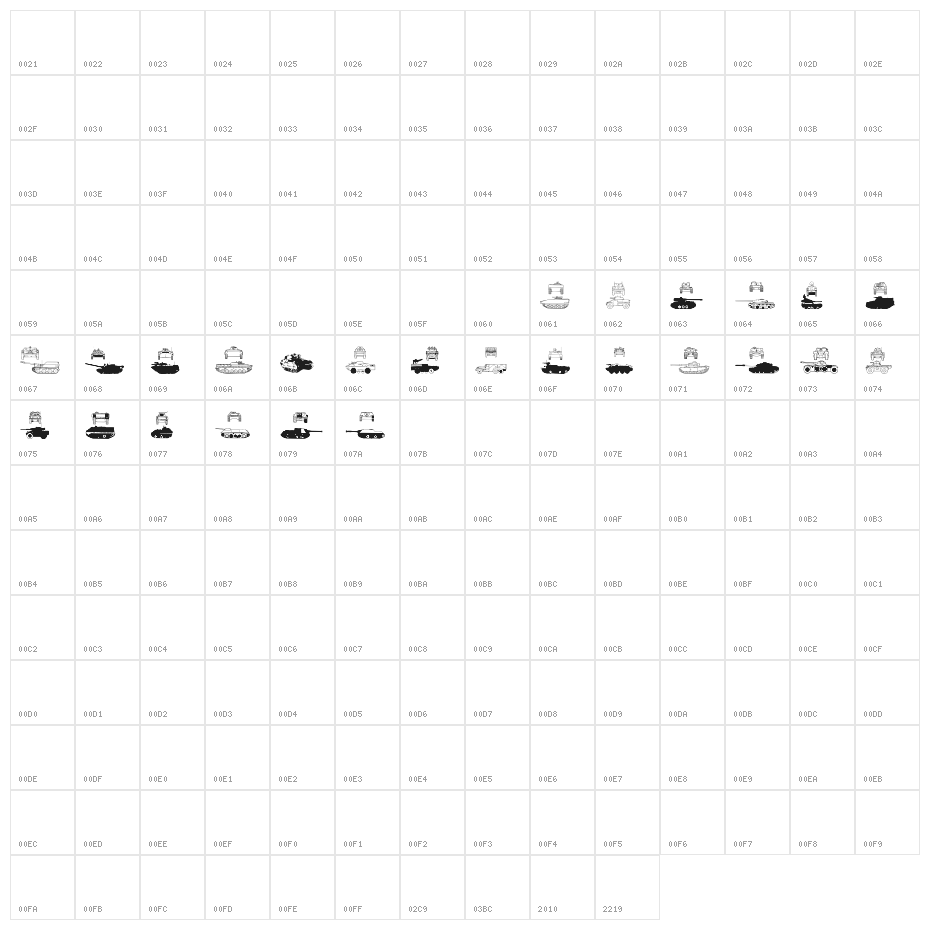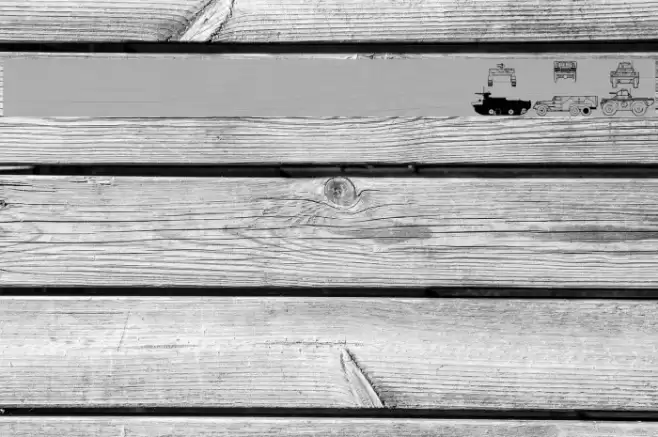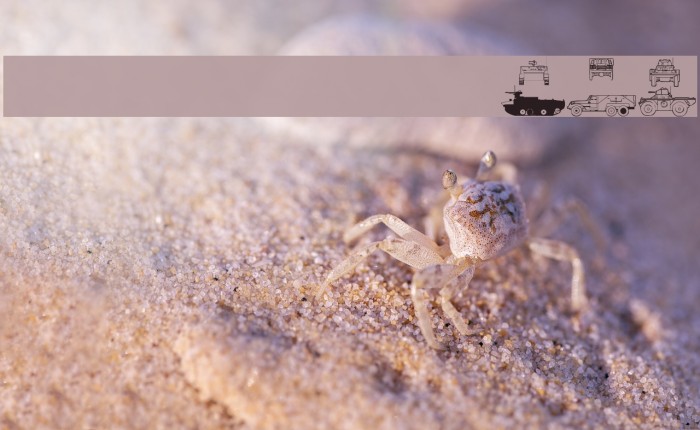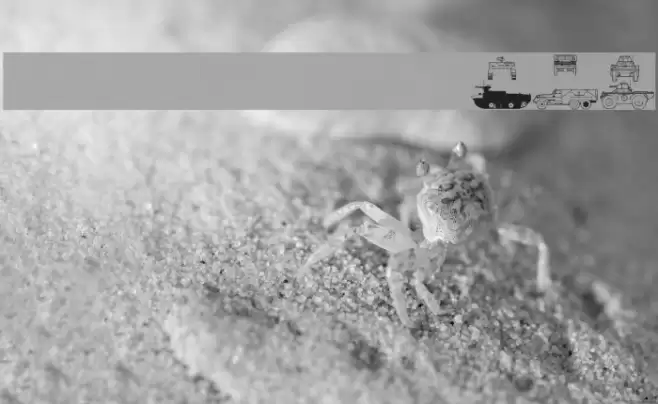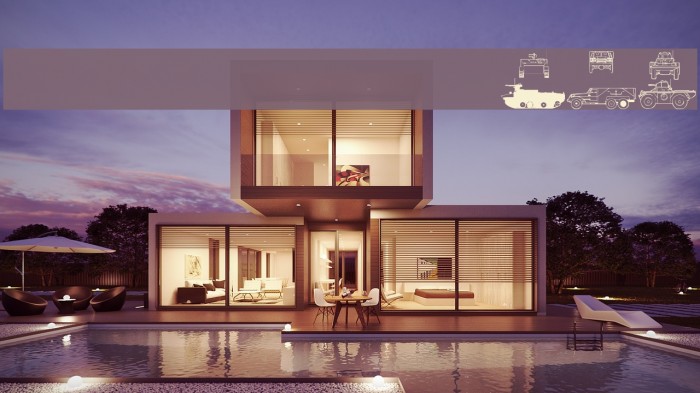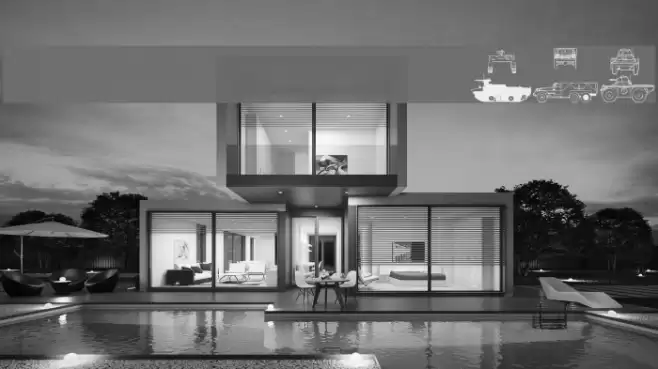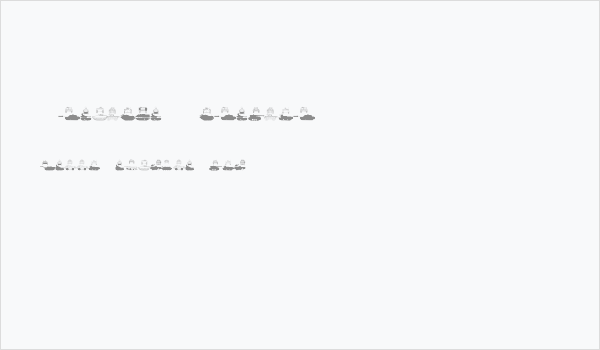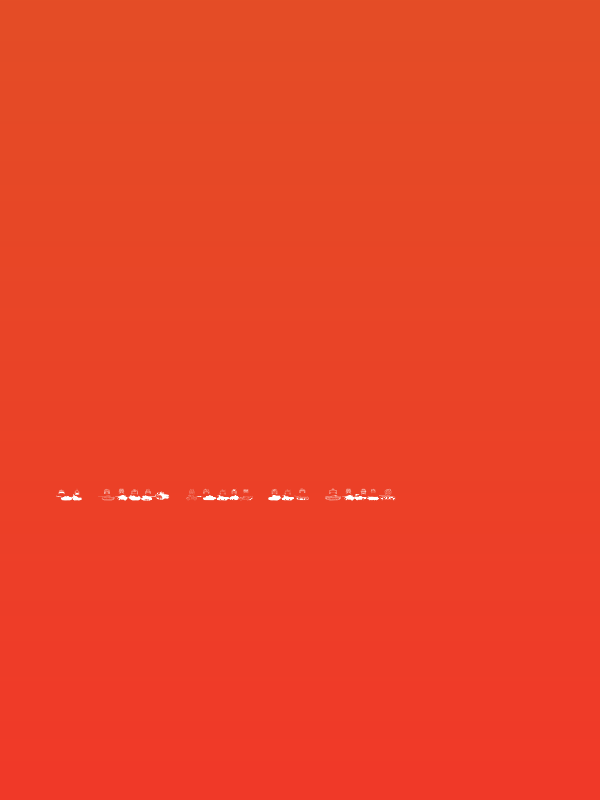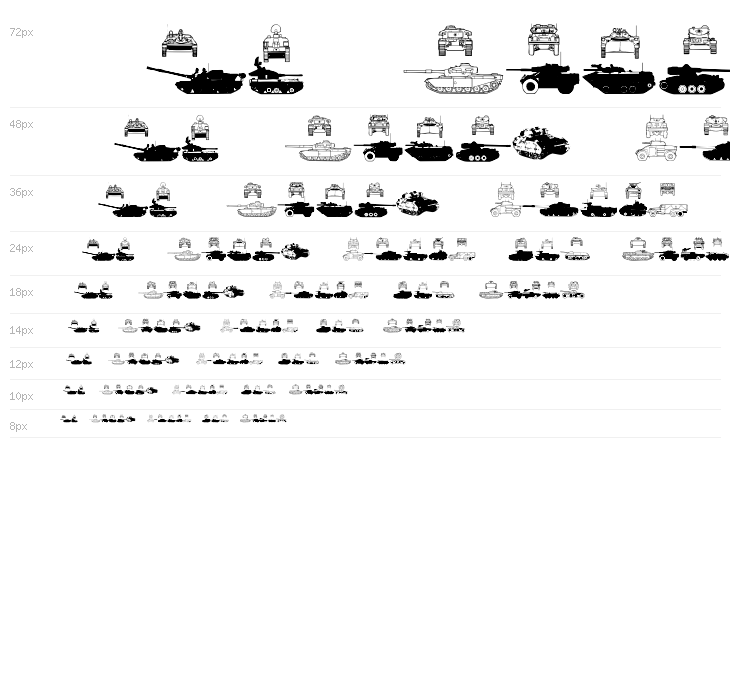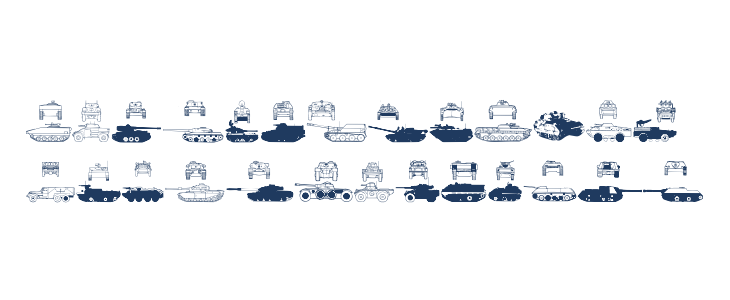
AFV1 Font
This font features a series of detailed illustrations of armored fighting vehicles, each representing a different character. The designs are intricate, capturing the unique shapes and features of various military vehicles. The style is bold and graphic, with a mix of solid black silhouettes and detailed line work that provides a sense of depth and dimension. The font is more illustrative than textual, making it suitable for creative and thematic projects that require a military or historical theme.
Use CaseLogos, Posters, Thematic Designs
Proposed ProjectsIdeal for military-themed posters, educational materials on military history, or creative projects requiring vehicle illustrations.